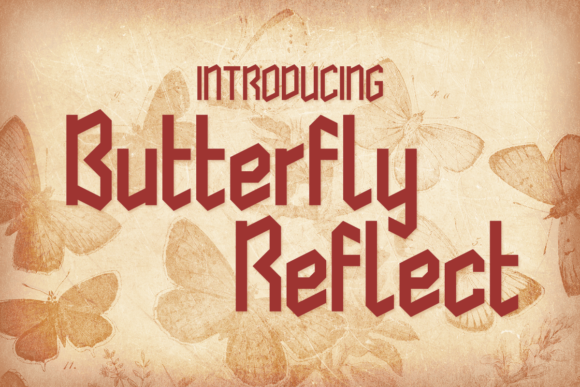
Unleash the captivating charm of Butterfly Reflect Font, a display typeface meticulously crafted by Chequered Ink. This font family is an exquisite symphony of elegance and grace, designed to breathe life into your creative endeavors. With its alluring curves and enchanting strokes, Butterfly Reflect Font possesses an innate ability to capture hearts and spark imaginations.
Immerse yourself in the world of Butterfly Reflect Font, where imagination dances freely and creativity knows no bounds. Its delicate lines and intricate details evoke a sense of timeless beauty, making it an ideal choice for creating designs that transcend the ordinary. Let your words take flight with Butterfly Reflect, a font that embodies the essence of refined artistry.
Explore the vast versatility of Butterfly Reflect, a font that seamlessly adapts to your diverse creative needs. Whether you're designing logos, brochures, invitations, or social media graphics, Butterfly Reflect effortlessly elevates your designs with its inherent sophistication. Its graceful forms lend a touch of elegance to any project, leaving a lasting impression on your audience.
Embark on a journey of self-expression with Butterfly Reflect, a font that empowers you to showcase your individuality. Its unique character set, featuring a delightful blend of uppercase and lowercase letters, numerals, and symbols, provides endless possibilities for creating captivating designs that reflect your authentic style. Unleash your creativity and let Butterfly Reflect be your artistic muse.